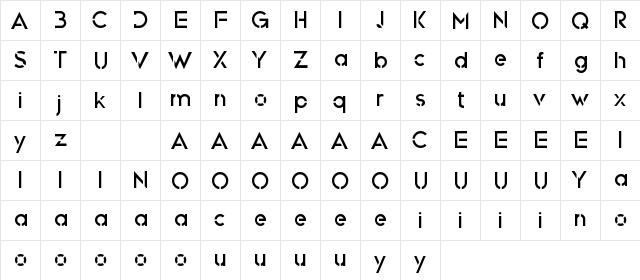
Myron Hector Demo Regular
| Foundry | Edric Studio |
| Designer | Muhamad Lukman Fauzi & Suci Anita |
Design Context for Myron Hector Demo Typeface
Myron Hector Demo offers clean, dependable letterforms without strong stylistic allegiance, making it a practical choice for designers who need flexibility.